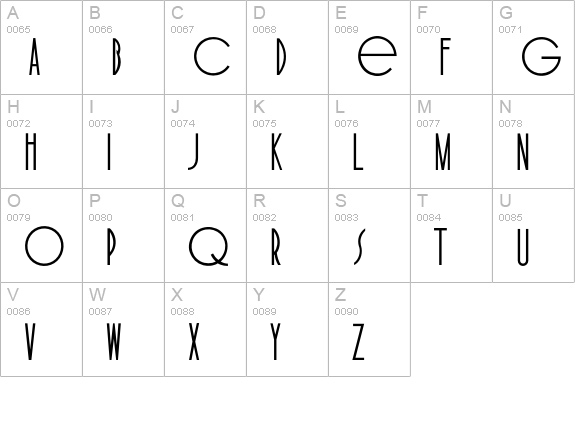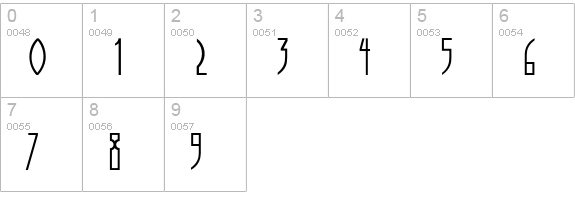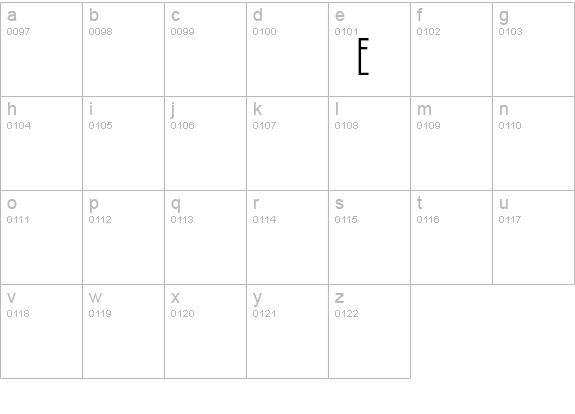
OPTICinema-Solid Font Details
Introducing OPTICinema-Solid font, a sleek and modern typeface that exudes sophistication and elegance. With its clean lines and bold presence, this font is perfect for adding a touch of class to any project. OPTICinema-Solid is versatile and can be used for a variety of design purposes, from branding to editorial design. What's even better is that OPTICinema-Solid is available for free download at FontsMarket.com. Yes, you read that right - this premium font can be yours at no cost. So why wait? Enhance your design projects with OPTICinema-Solid today and elevate your work to the next level.